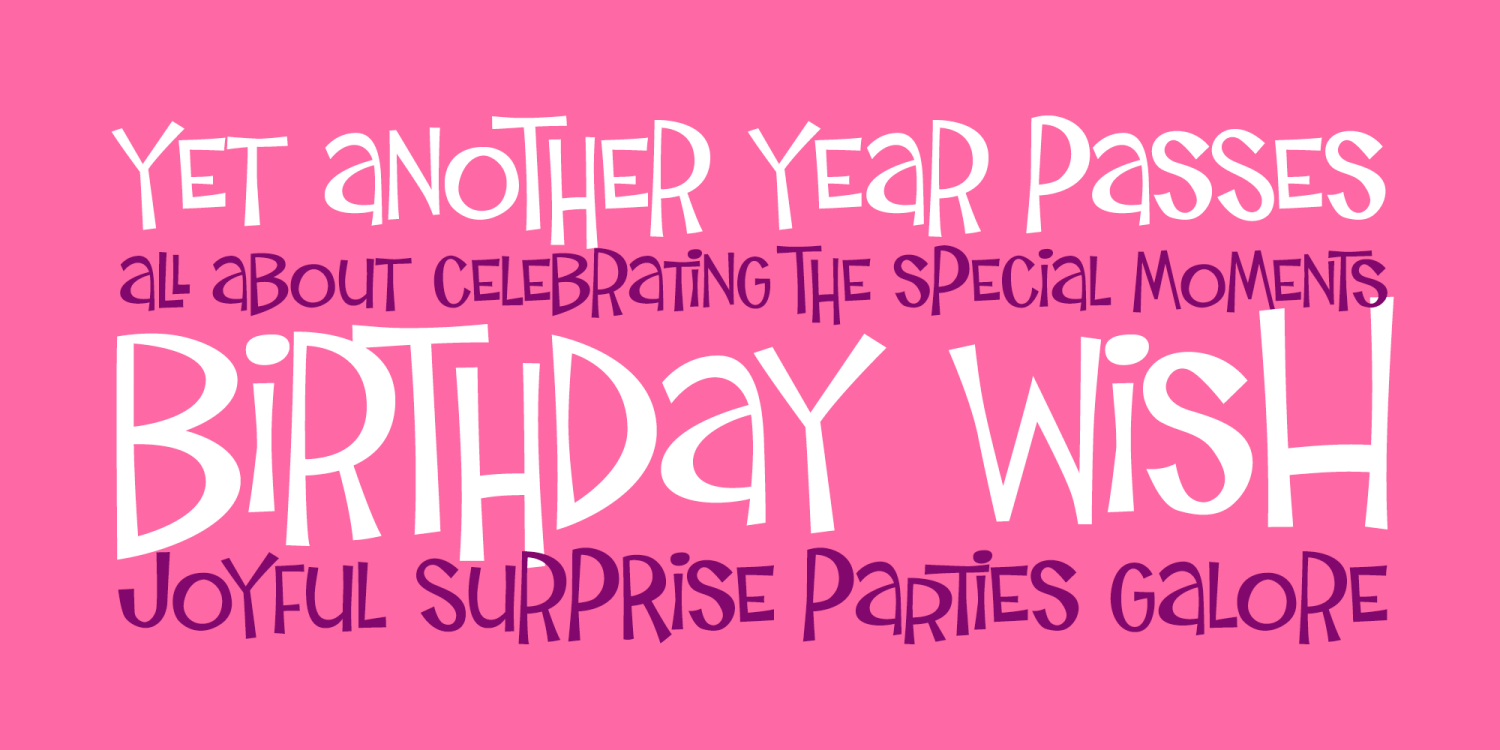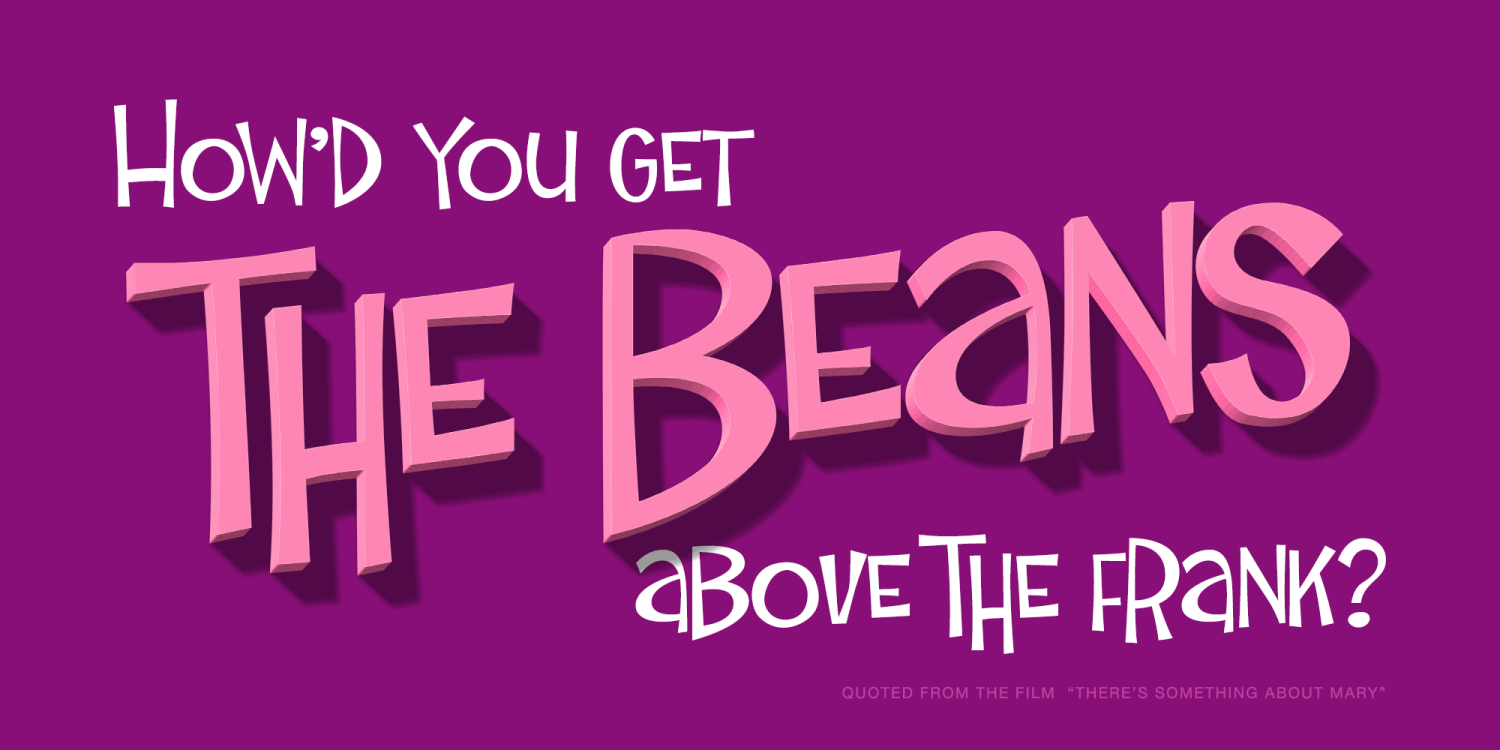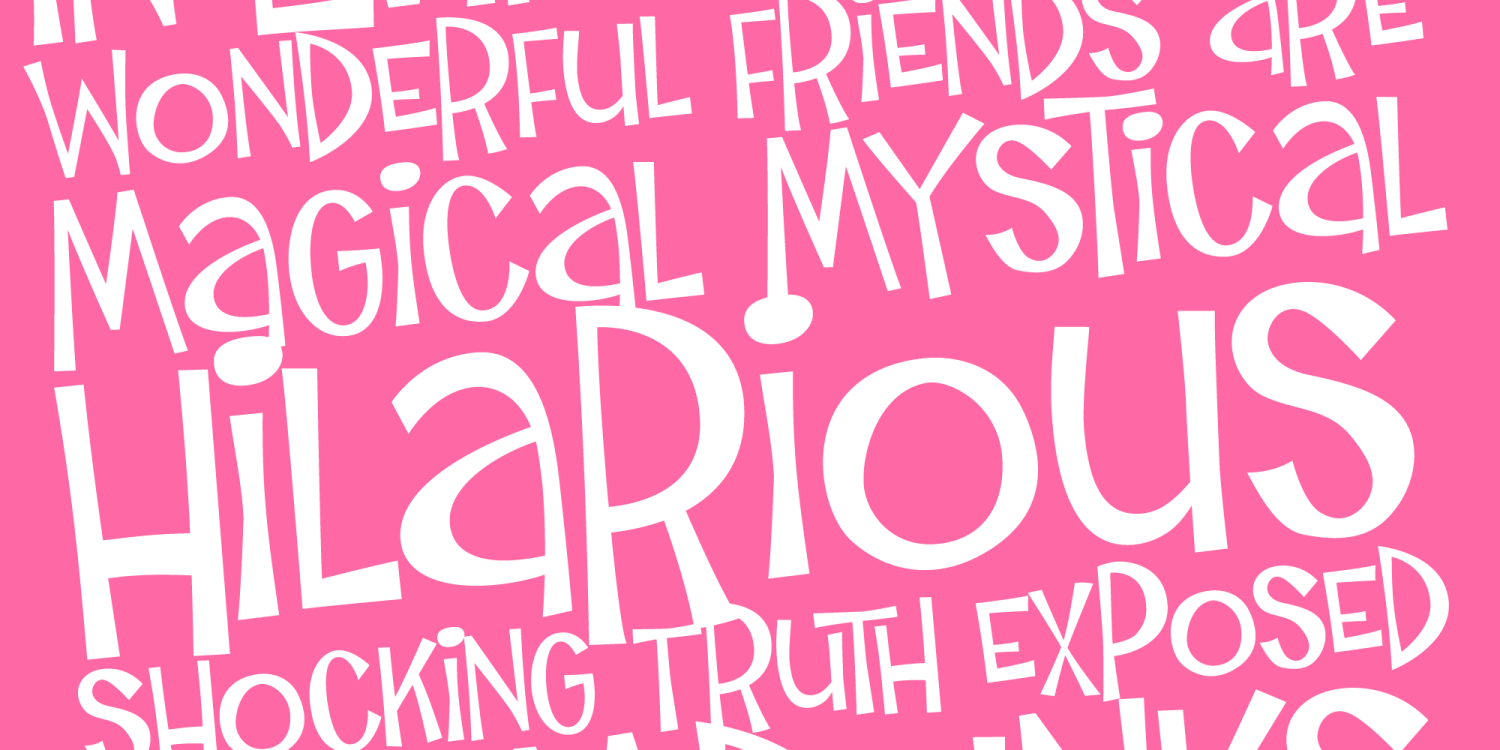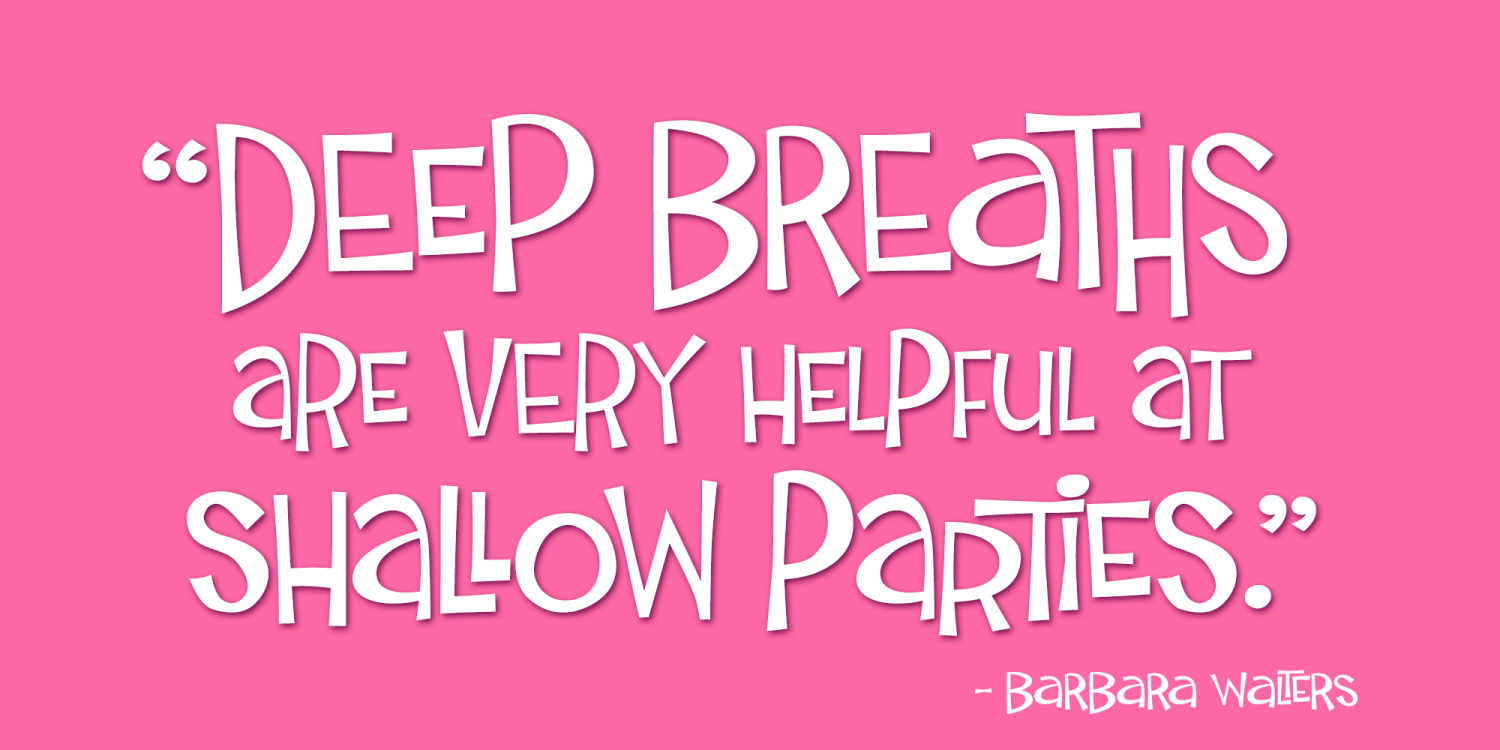
Birthday Wish
Birthday Wish is a totally off-kilter sans-serif font inspired by a late 70's birthday greeting card. Much like a typographic drunken stumble, this font wonderfully and awkwardly fumbles across designs, surprising with each letter typed.
With a pseudo unicase character set, and offbeat letter weighting, Birthday Wish is fun to typeset with, with a cluster of ligature combinations that add to the quirky playfulness. You'll find this Birthday Wish is a typesetting ride of a font. Try typing standard, all caps, or all lowercase for even more visual variety.